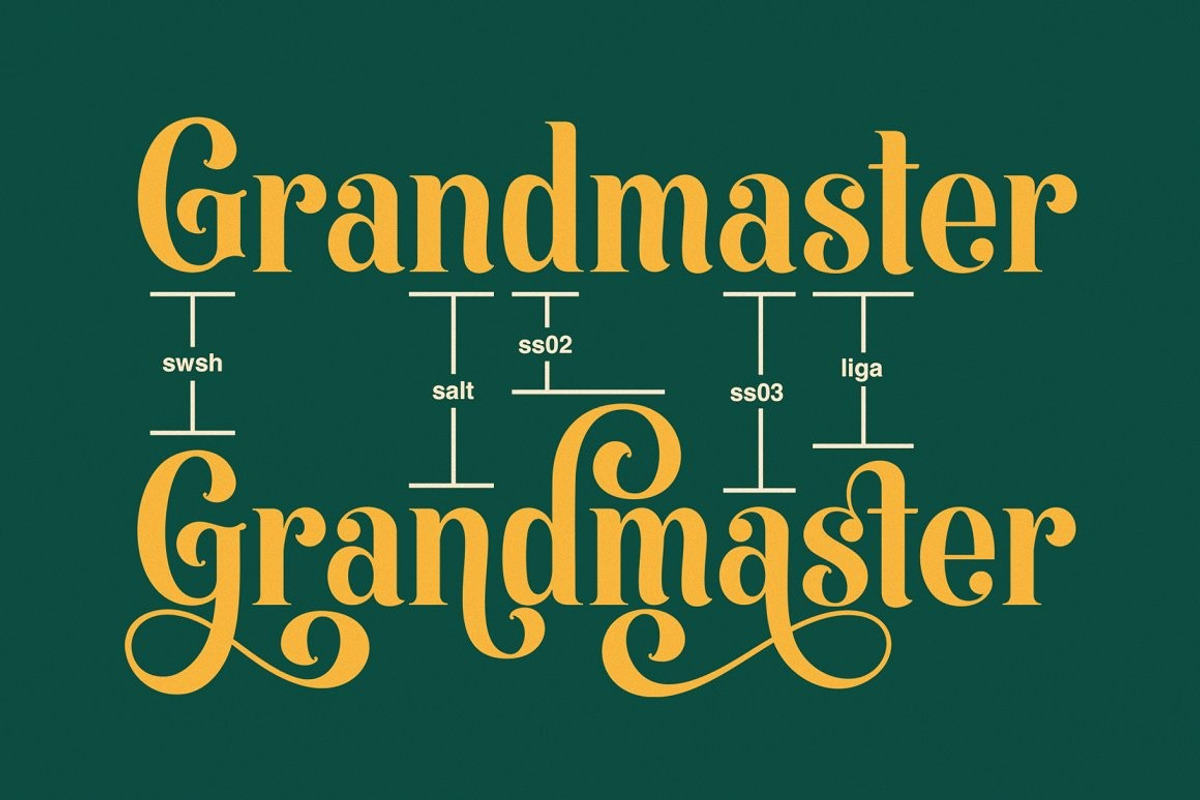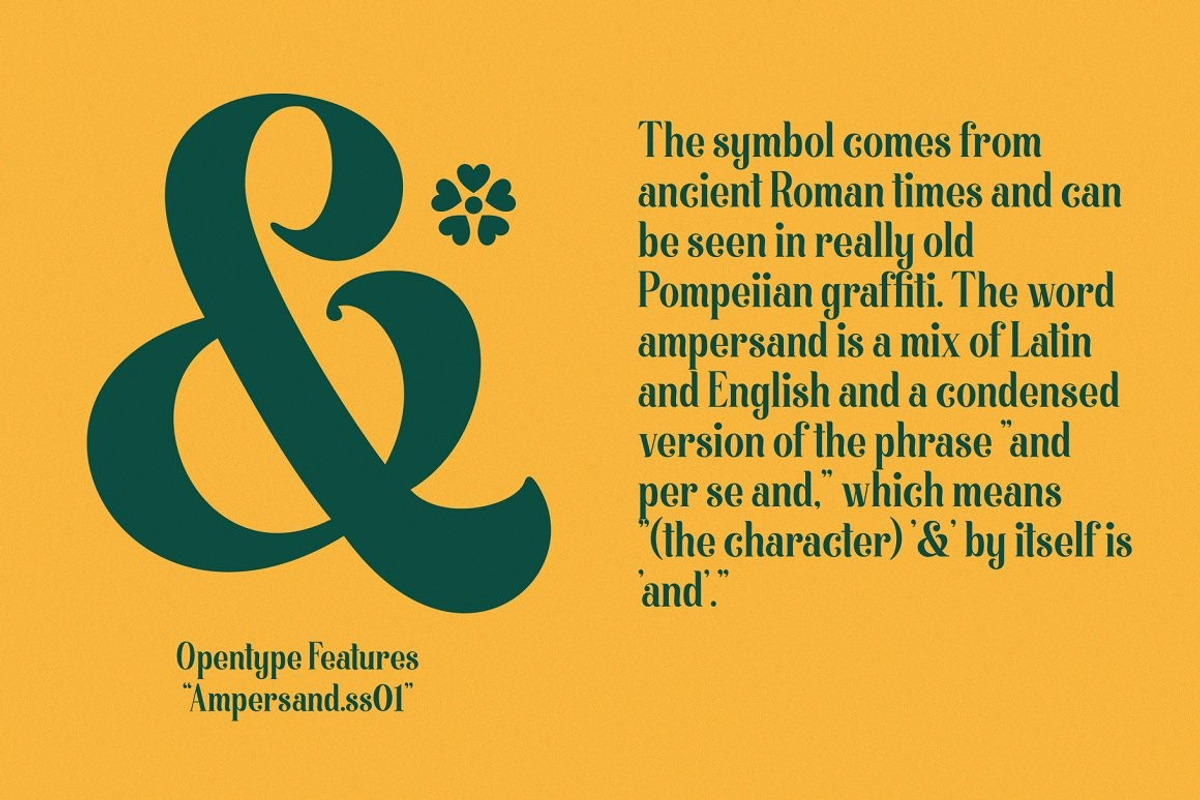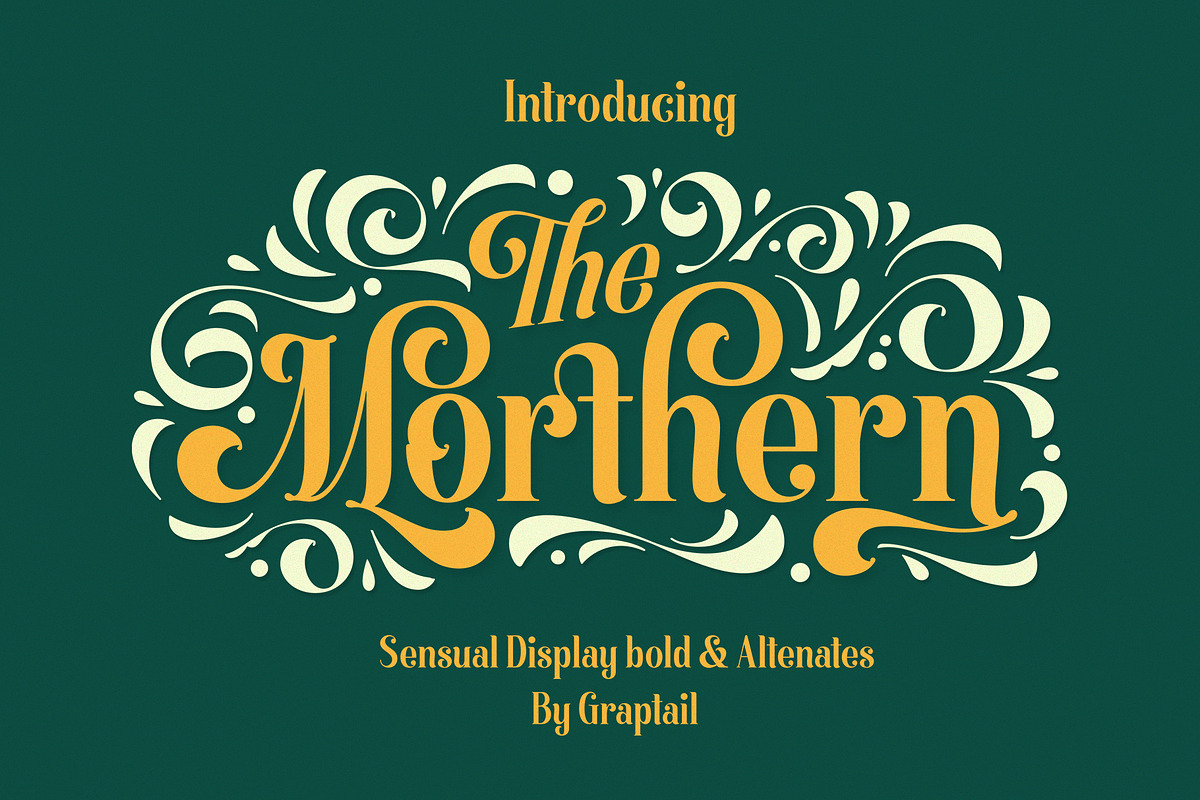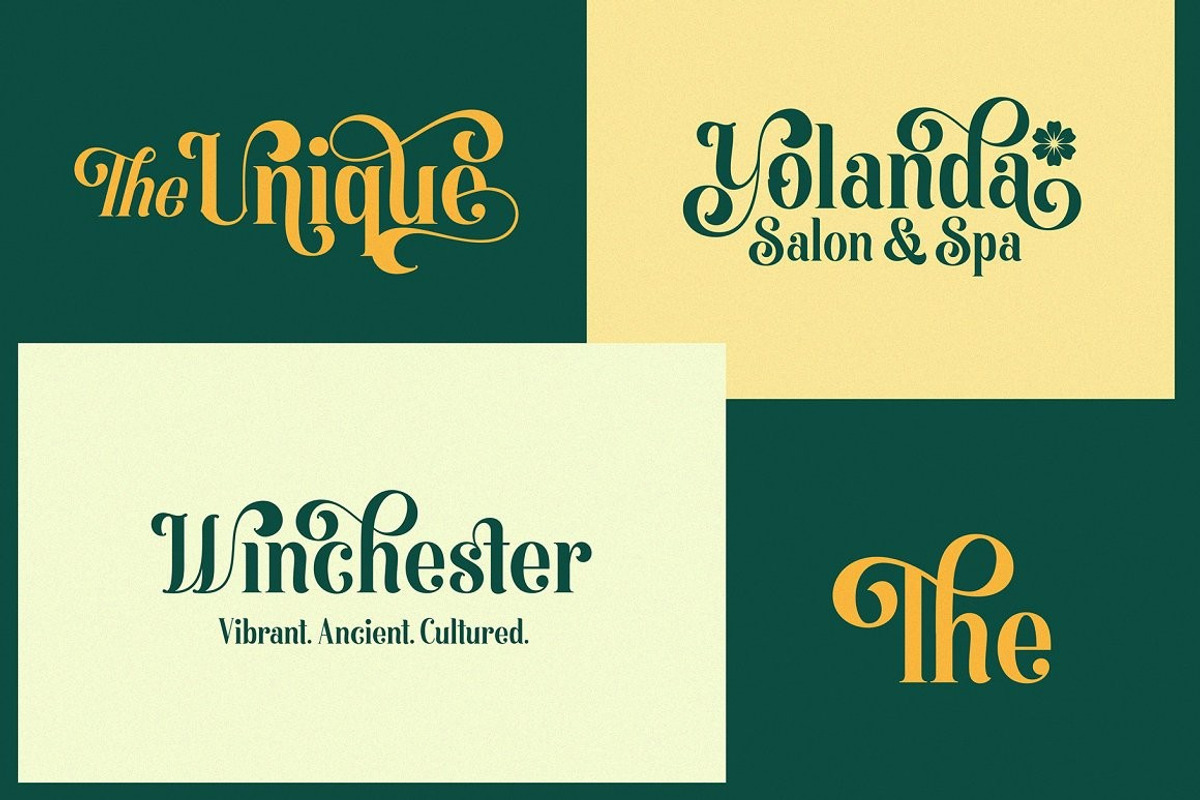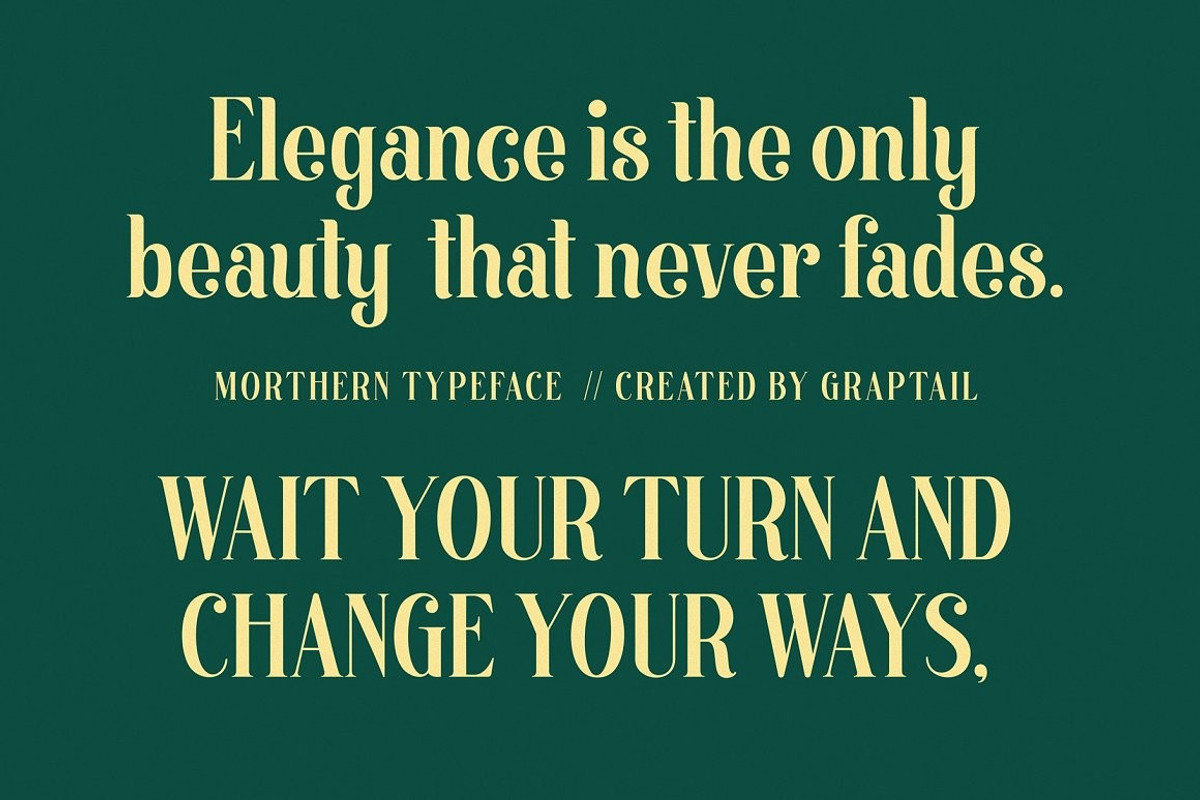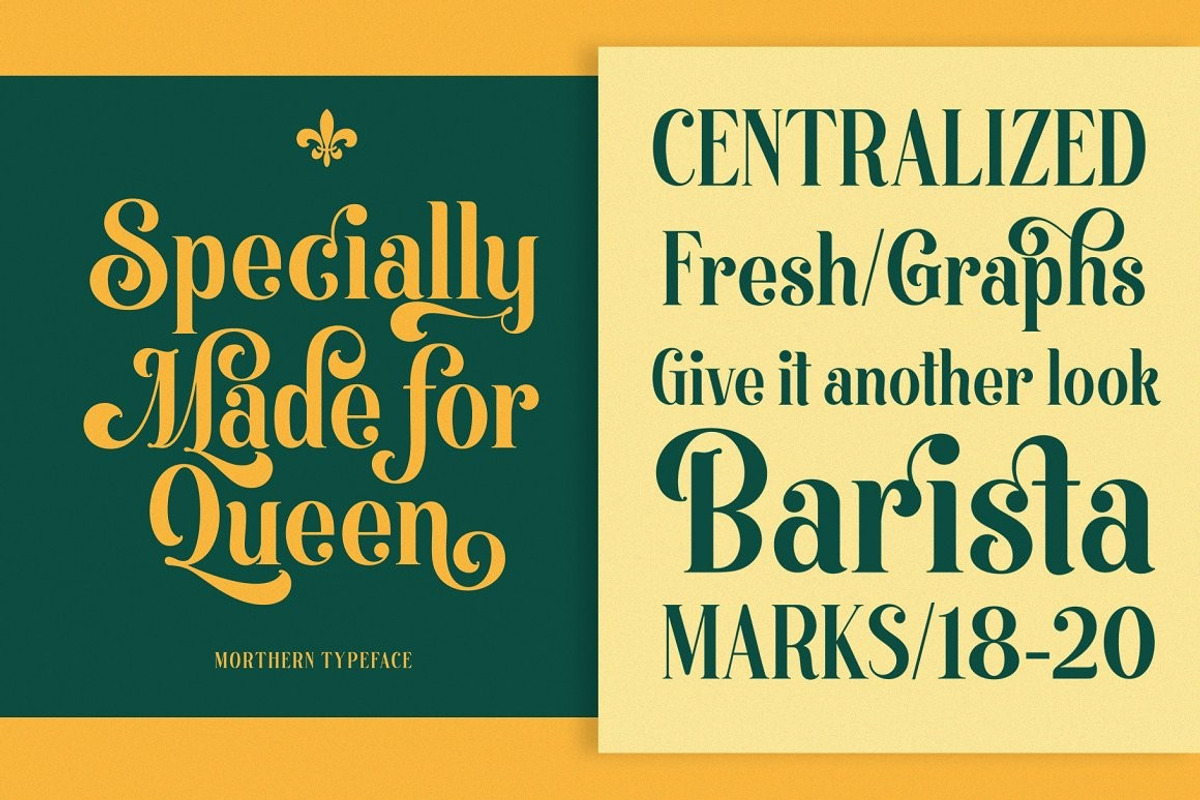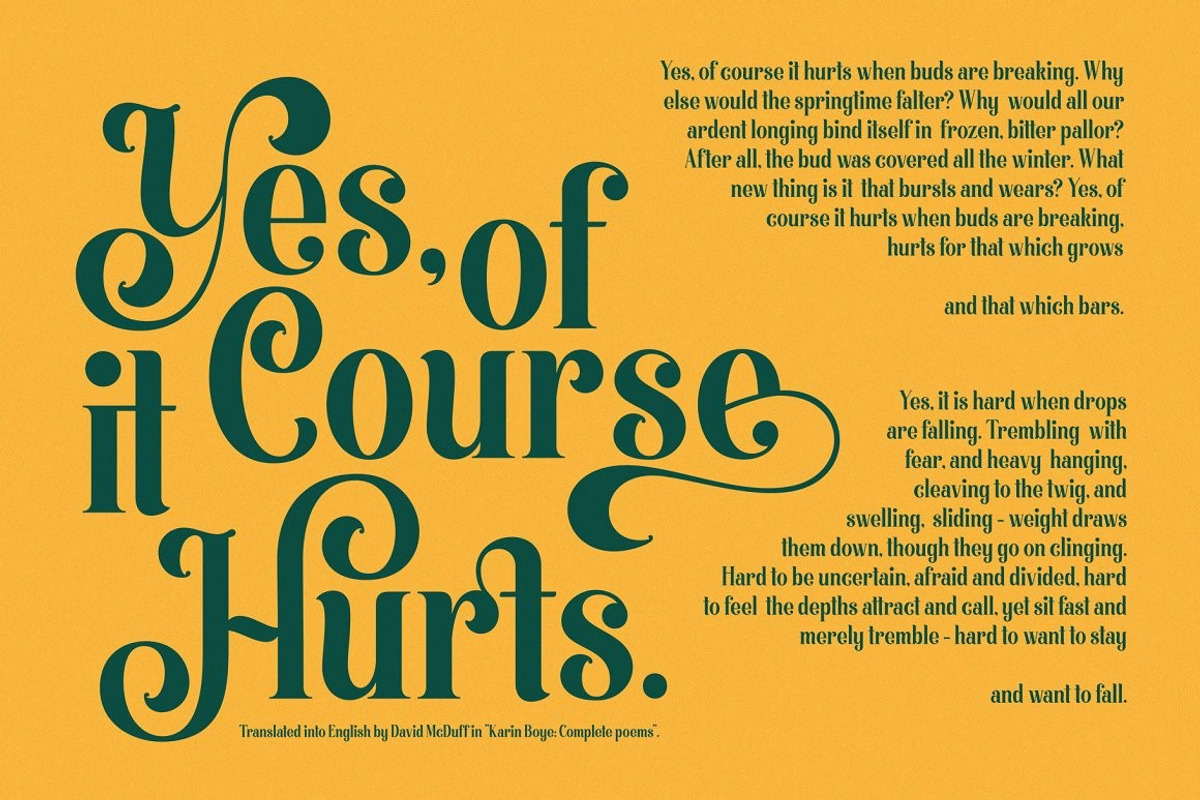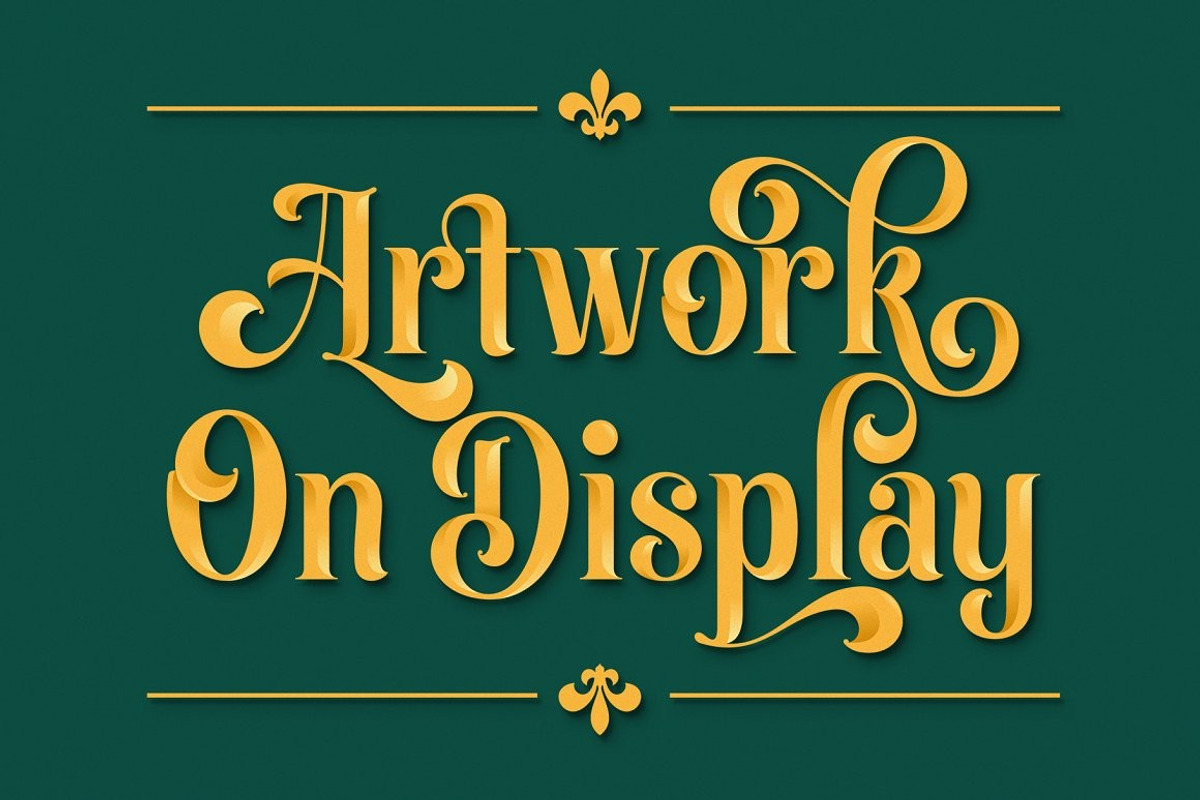
Morthern Font + Extras
Morthern is inspired by the work of charming lettering artists with a combination of Old Style Display Bold. Each letter is modified so that the distance. Width and weight can give the beauty of the alternates given. A passionate curve gives a touch of beauty to this font. Come up with two different shapes in terms of uppercase letters that aim to distinguish between title of the letter and the paragraph.